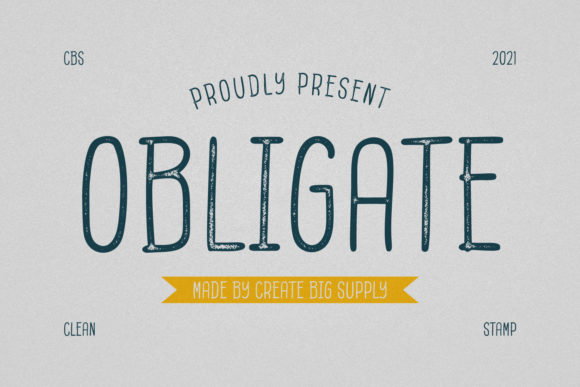
**Introducing Obligate: The Bold & Vibrant Font for Unforgettable Designs**
Prepare your designs for the spotlight with Obligate, our captivating display font designed to ignite your creations with a touch of boldness and vibrancy.
**Ignite Your Design with Unforgettable Impressions**
Obligate's clean lines and striking presence will command attention, turning your words into visual masterpieces. Whether crafting eye-catching road signs to guide travelers or creating vibrant posters that demand a second glance, Obligate empowers you to leave a lasting impact.
**Versatile Charm for Endless Creative Possibilities**
From the warmth of birthday cards to the buzz of social media feeds, Obligate effortlessly adapts to any design endeavor. Its playful yet sophisticated character adds a touch of whimsy to greeting cards, while its clean lines lend a touch of professionalism to branding materials.
**A Joyful Glow that Captivates and Enchants**
Obligate's cheerful demeanor radiates throughout every design, creating a joyful ambiance that draws viewers in and invites them to linger. Your creations will exude an irresistible charm that fosters connection and inspires joy.
**Craft Designs that Speak Volumes**
With Obligate as your font companion, your designs will transcend ordinary and embrace the extraordinary. Its versatility and emotional appeal will elevate your projects to new heights, leaving an unforgettable mark on all who encounter them.
**Obligate: The Font that Empowers Your Design Journey**
Indulge in the endless possibilities of Obligate and unlock the potential to create truly captivating designs. Its versatility, charm, and captivating nature will ignite your imagination and empower you to craft designs that resonate with your audience and leave a lasting impression.